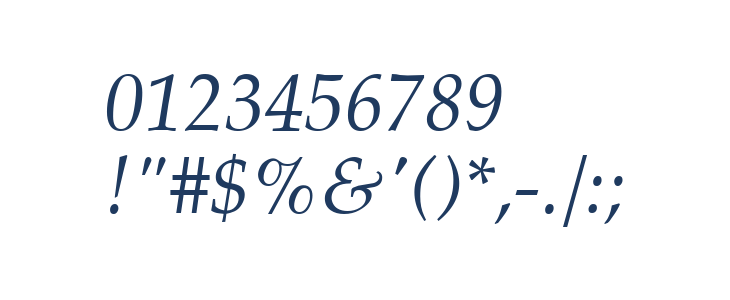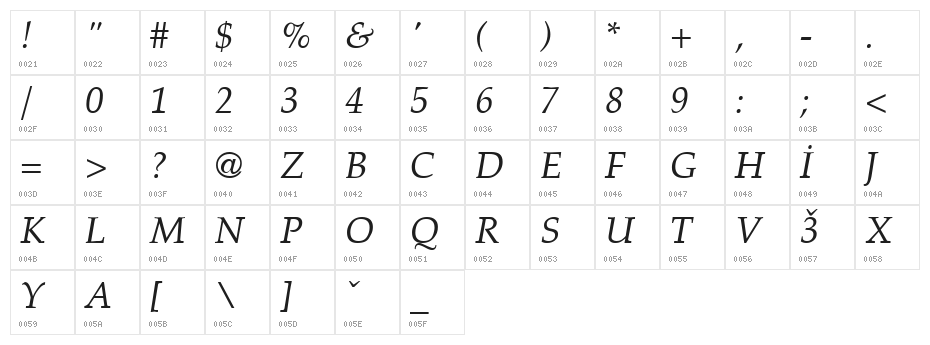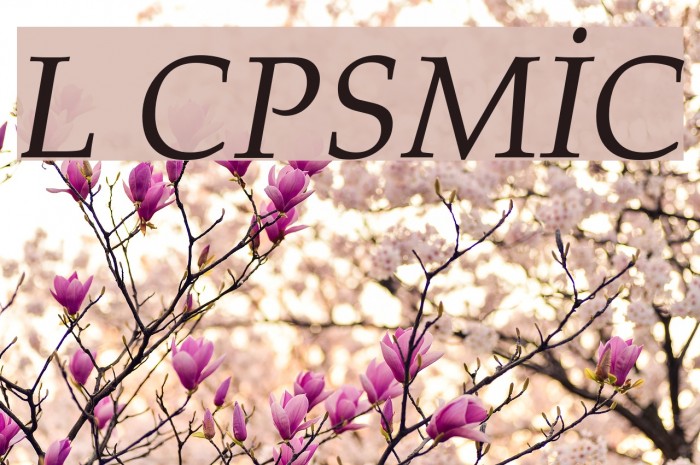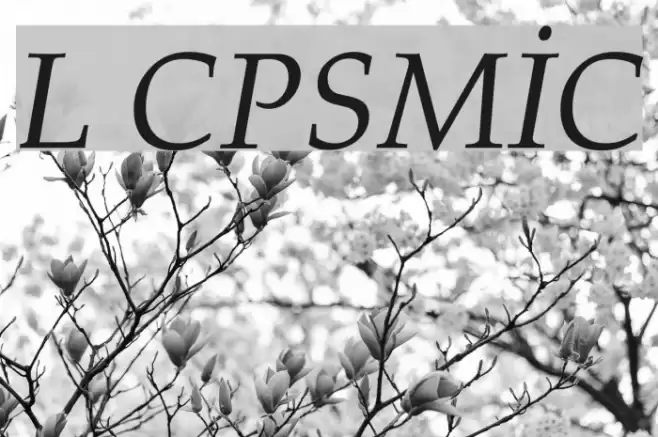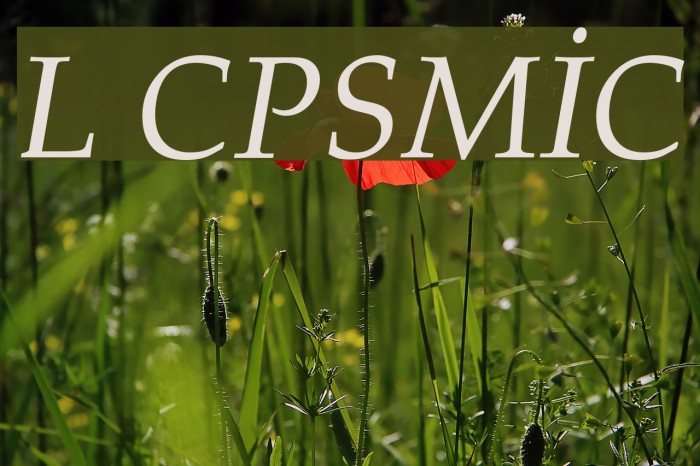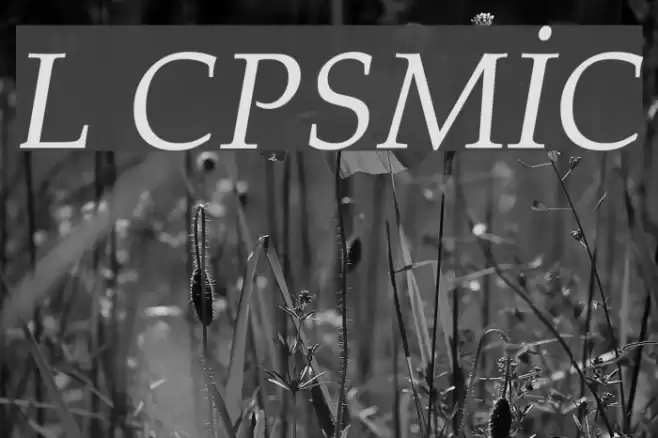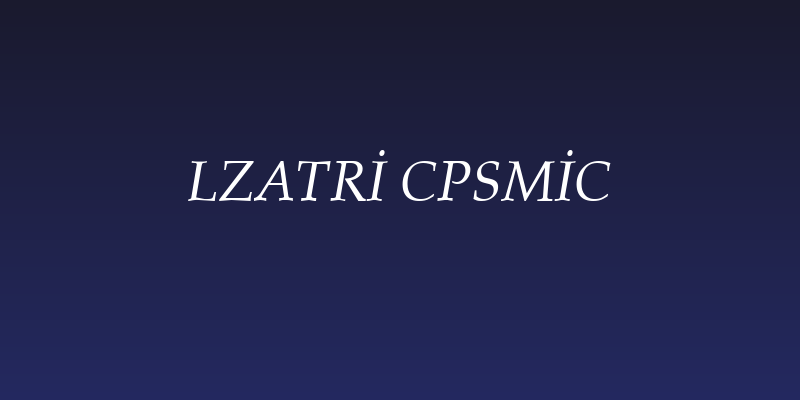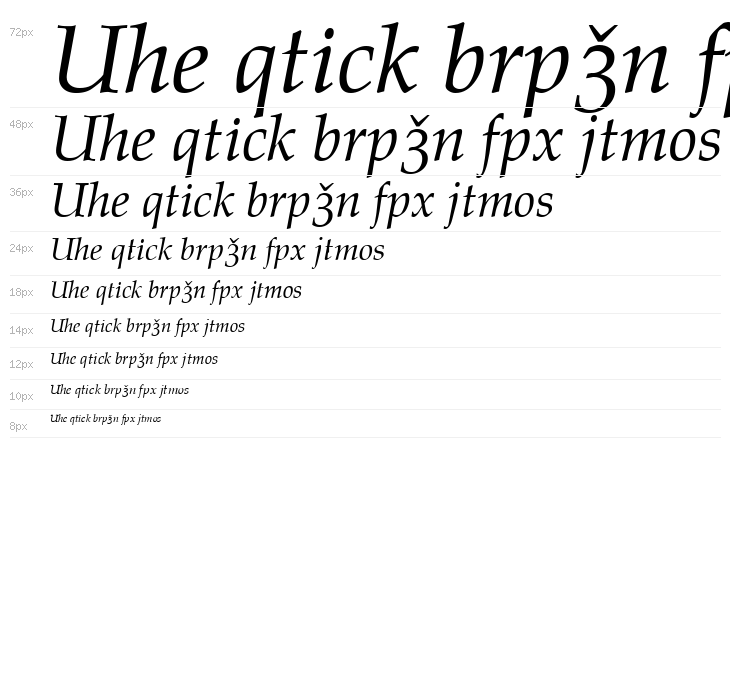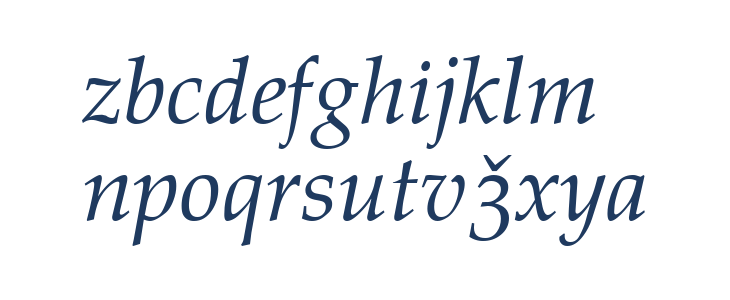
Lazuri COSMIC Font
Lazuri COSMIC Description
This font exhibits a classic serif style with a slightly modern twist, characterized by its elegant and flowing italic forms. The uppercase letters are tall and stately, while the lowercase letters maintain a consistent slant, adding a sense of motion and grace. The numerals are proportional, aligning well with the overall design. Special characters are crafted with the same attention to detail, ensuring a cohesive look across all glyphs. The font's contrast is medium, with noticeable differences between thick and thin strokes, enhancing readability while maintaining a sophisticated appearance.
| Proposed Projects | Ideal for projects requiring a touch of elegance and sophistication, such as wedding invitations, luxury branding, editorial design, and high-end product packaging. |